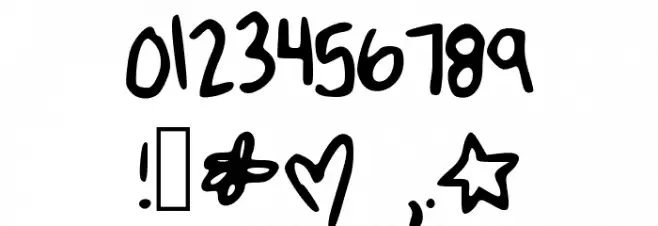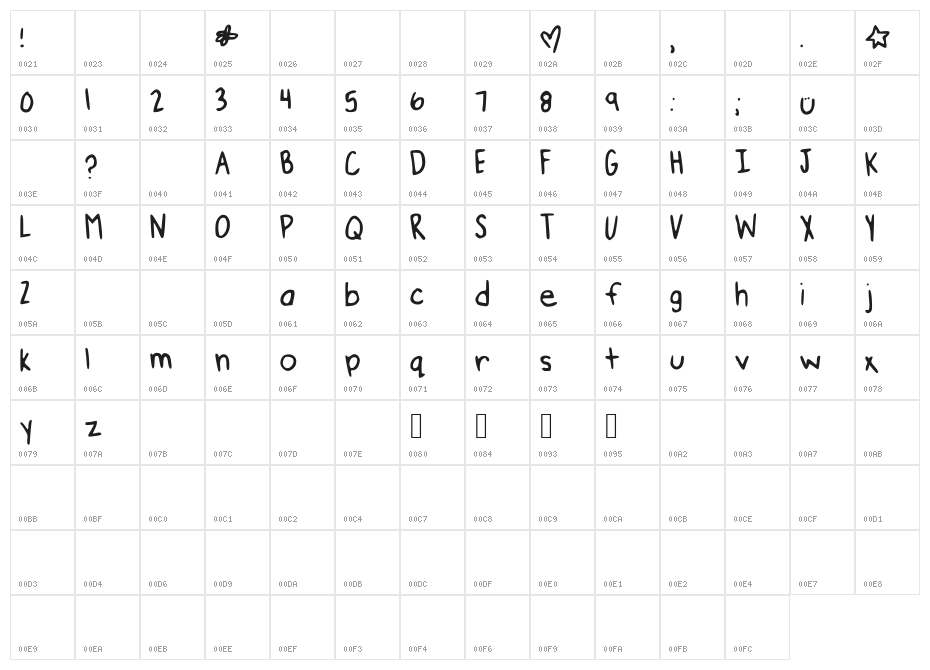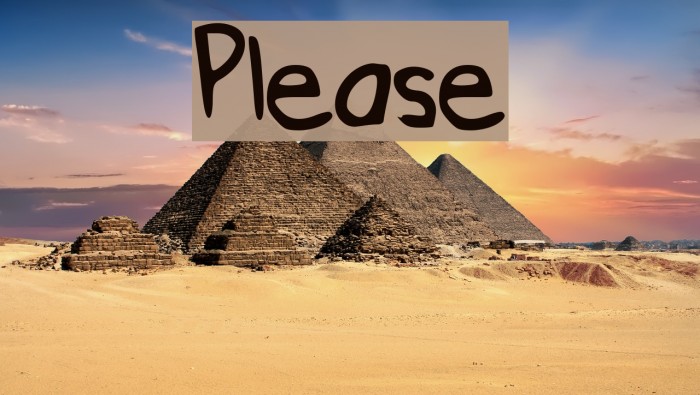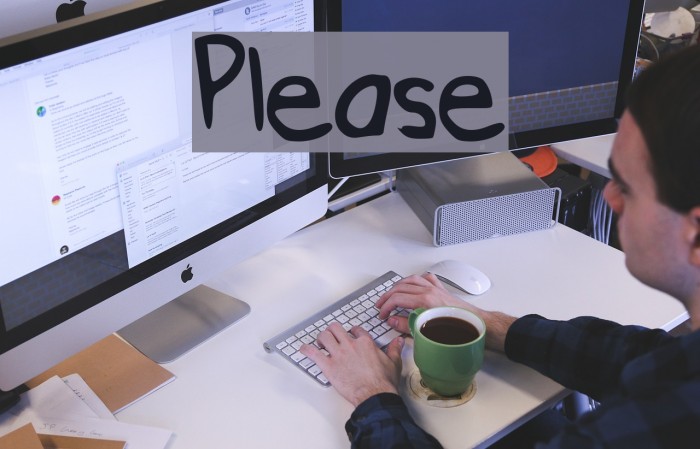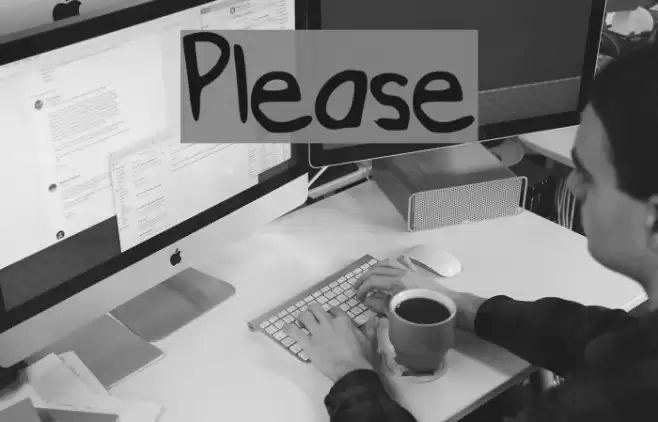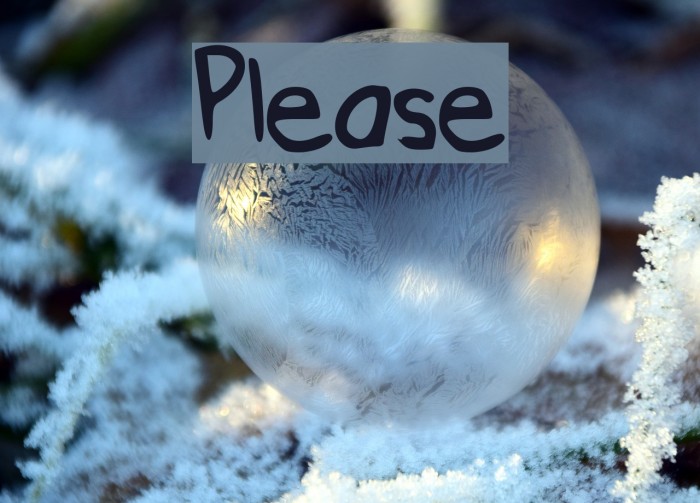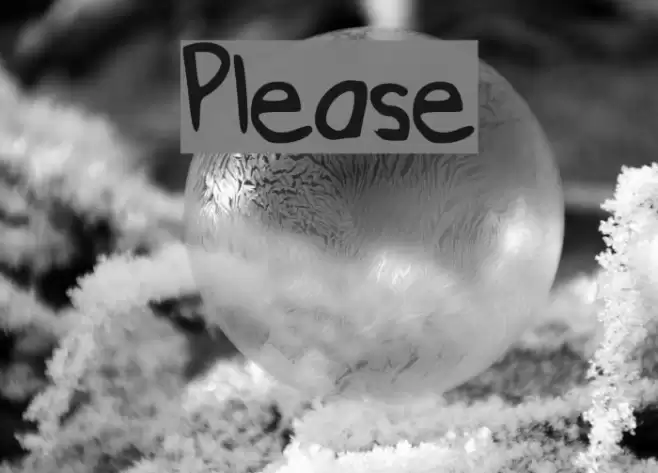
Please Font
Please Description
This font features a playful, handwritten style with a casual and informal appearance. The letters are bold and slightly irregular, giving them a whimsical and friendly feel. The uppercase and lowercase letters maintain a consistent style, with rounded edges and a slightly uneven baseline, adding to the hand-drawn aesthetic. The numbers and special characters follow the same playful design, making the font suitable for creative and fun projects. The overall look is approachable and lively, perfect for capturing attention in a lighthearted way.
| Proposed Projects | Ideal for children's books, greeting cards, playful branding, and social media graphics. |